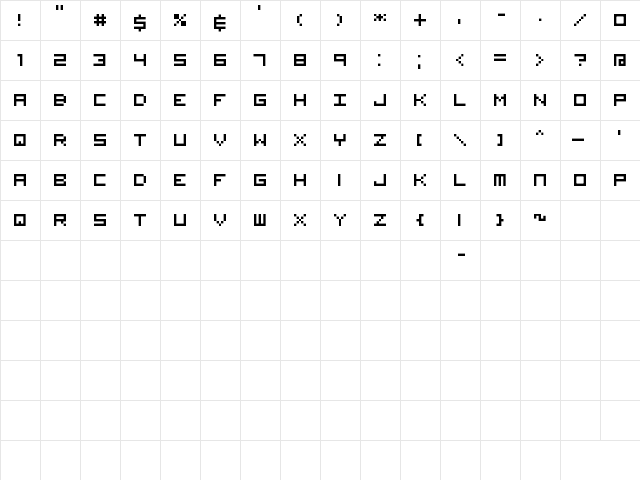
Visitor_Rus Regular
| Designer | Beerman |
Design Context for Visitor_Rus Typeface
Visitor_Rus takes a measured approach to typography — its balanced proportions and neutral character make it a reliable workhorse for both digital and print work.